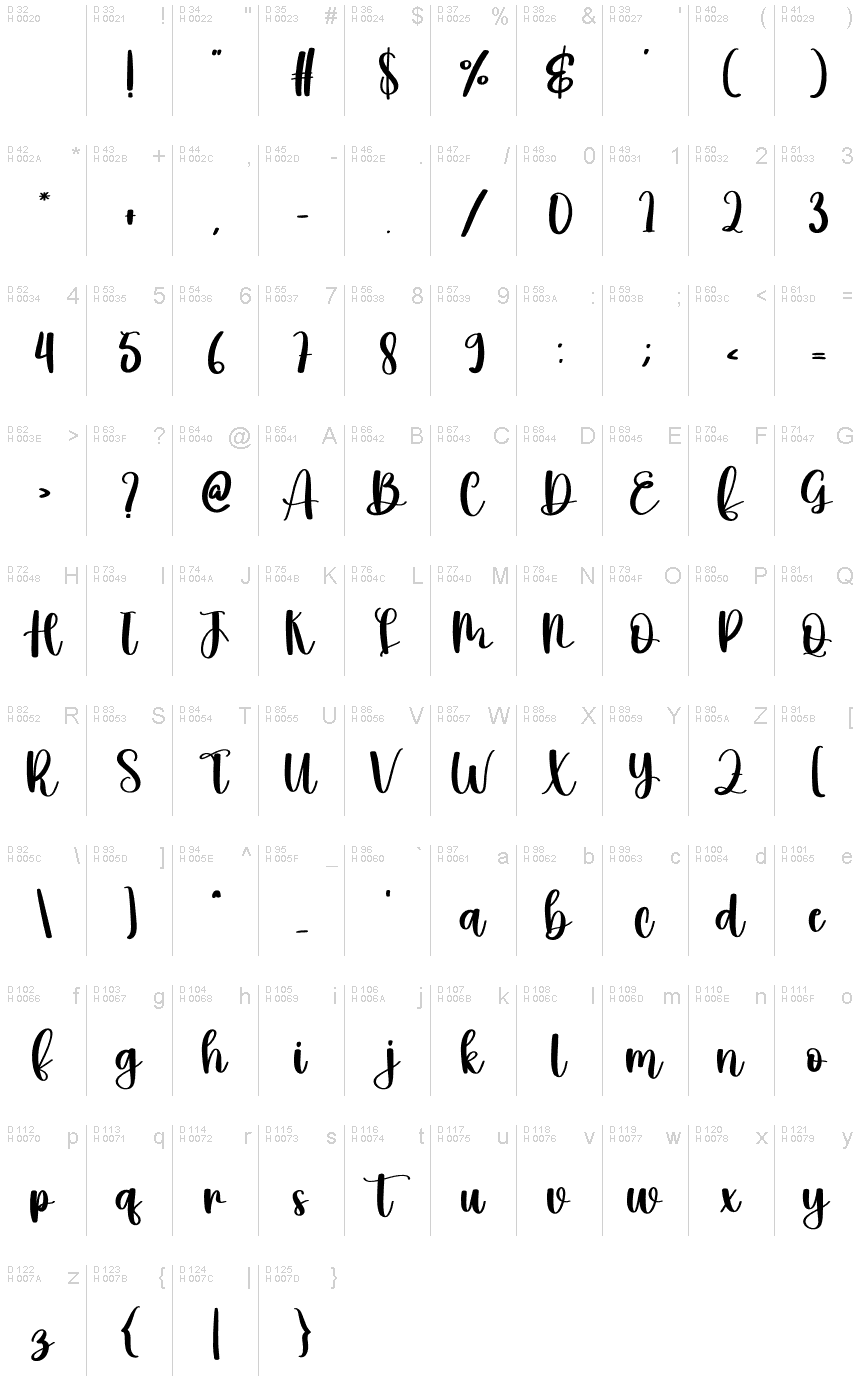
Media
The Media font, designed by scratchones, is a beautifully crafted handwritten typeface that is perfect for projects that require a personal touch. Its delicate lines and playful curves make it an ideal choice for greeting cards, invitations, and other stationery designs. The semi-bold font width adds just the right amount of emphasis to your message without overpowering the overall aesthetic. Whether you're creating a logo or designing a website, Media's versatility makes it suitable for a range of projects.
the latest style letters are perfect for wall displays, wedding invitations, social media post logos, advertisements, product packaging, product designs, labels, photography, watermarks, invitations, stationery, and any project that requires taste handwriting.